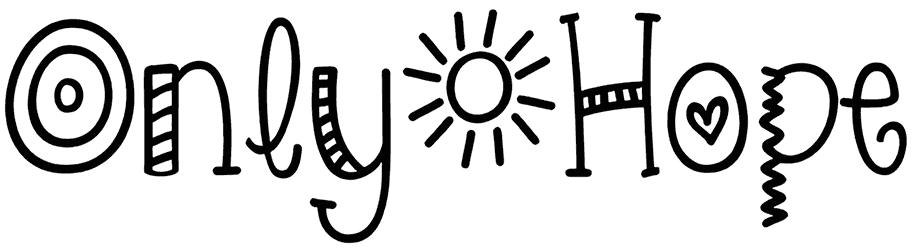
KG Only Hope Font
The characters are eager to play nonstop. Probably a child was looking forward to a playmate, but they couldn’t find one, then dreamt and created the KG Only Hope font to play with. So it is perfect for entertaining them, such as children’s storybooks, Games, and Cartoons.
This playful font with sensational characters is mostly used for comic books, birthday cards, T-shirts, posters, book covers, and almost anything else. Also, it is classified in the doodle font group.
Designed by: Kimberly Geswein